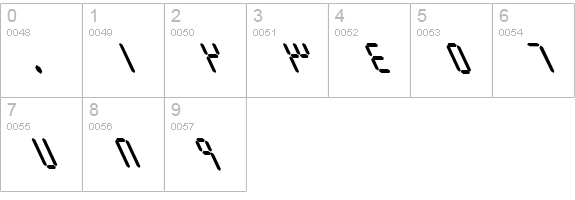
B Elm Italic Font Details
B Elm Italic is a distinctive, italic variant in the B typeface family \xE2\x80\x94 well suited to design and typography projects.
B Elm Italic font is a visually striking and versatile typeface that exudes elegance and sophistication. Its sleek and stylish design makes it perfect for a wide range of projects, from branding to editorial design. The italicized style adds a touch of flair and uniqueness to any text it graces. What sets B Elm Italic font apart is not only its modern aesthetic, but also the fact that it is available for free download at FontsMarket.com. This means that you can easily access this high-quality font without any cost, making it a valuable addition to your font library. Whether you're looking to elevate your designs with a touch of modernity or add a hint of sophistication to your branding, B Elm Italic font is the perfect choice. Download it for free today and unlock the endless creative possibilities it offers.